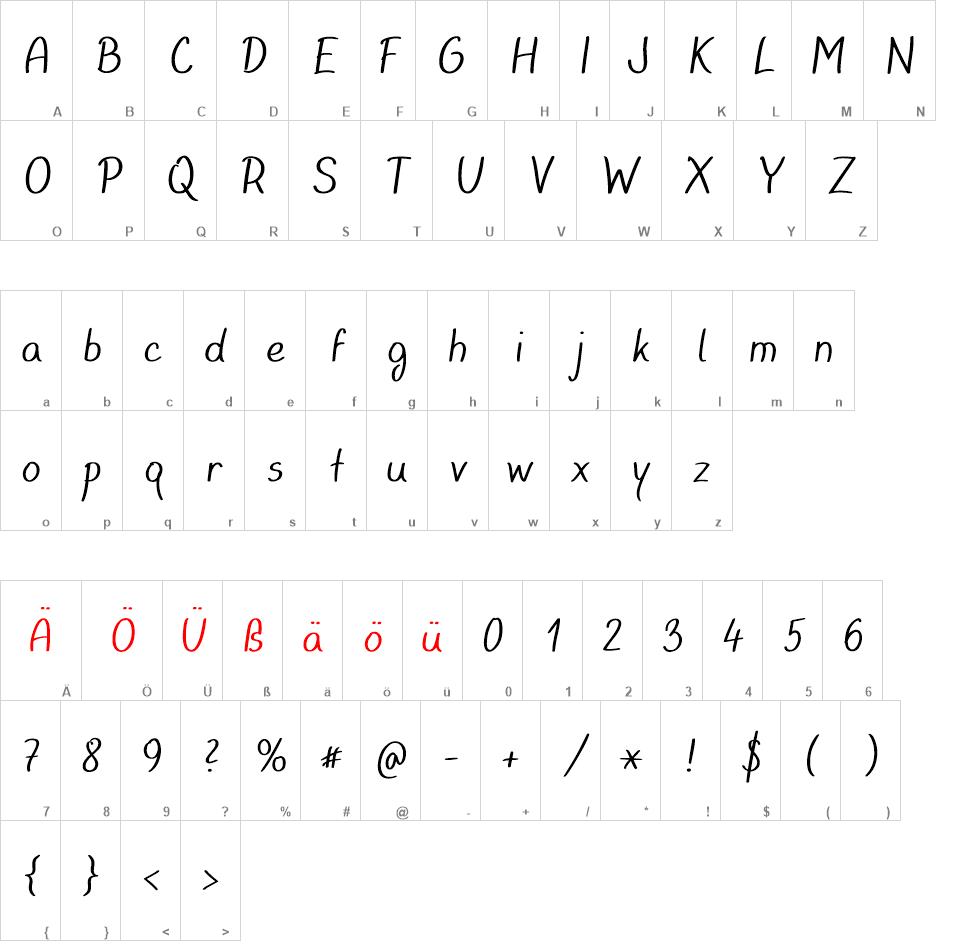
Quality of Life
Quality of Life  font
Quality of Life
In the beginning it was a simple handwritten font and after a lot of tweaking and fine tuning it is... well, still a simple handwritten font. =}